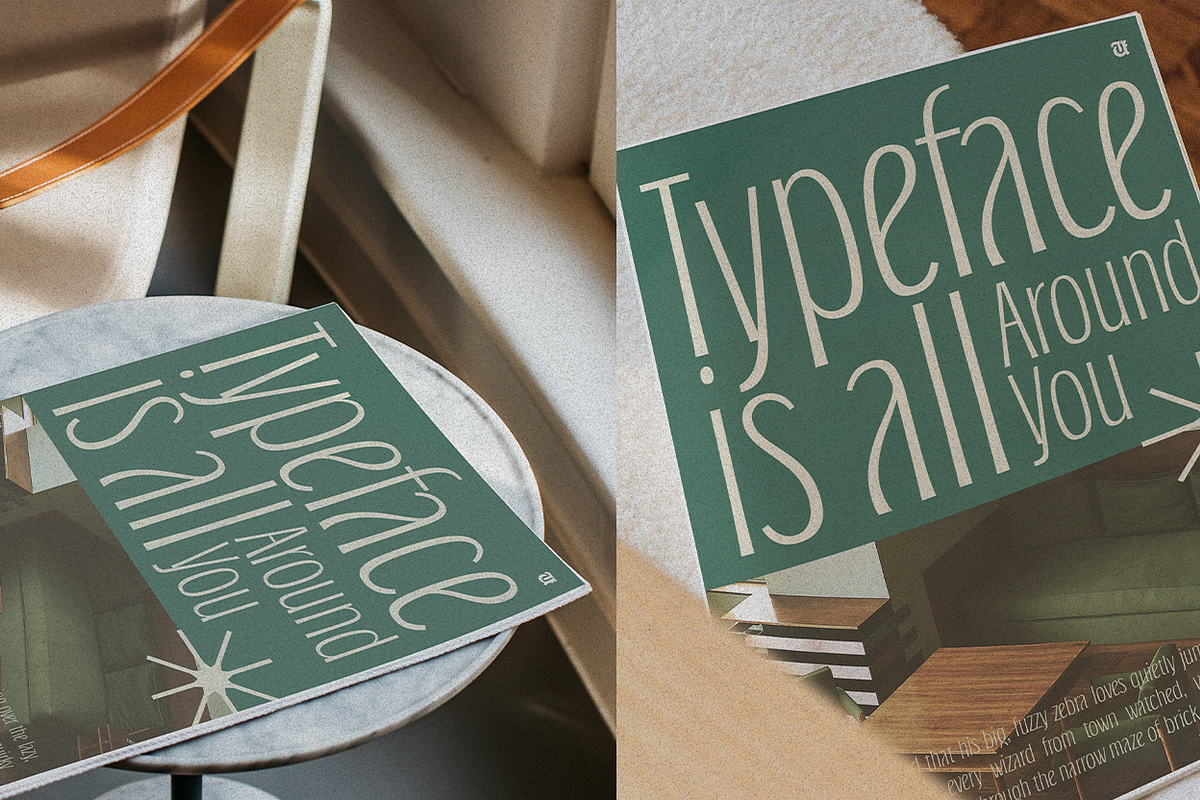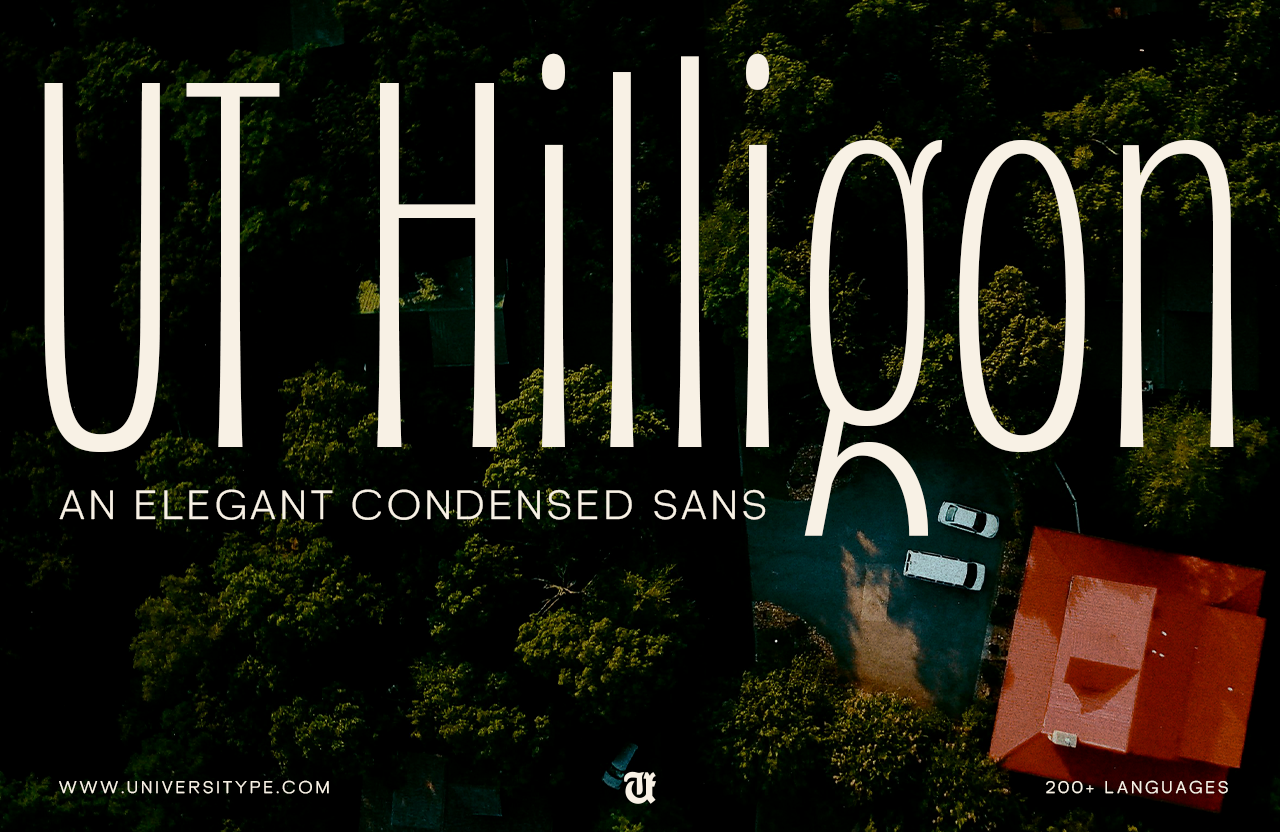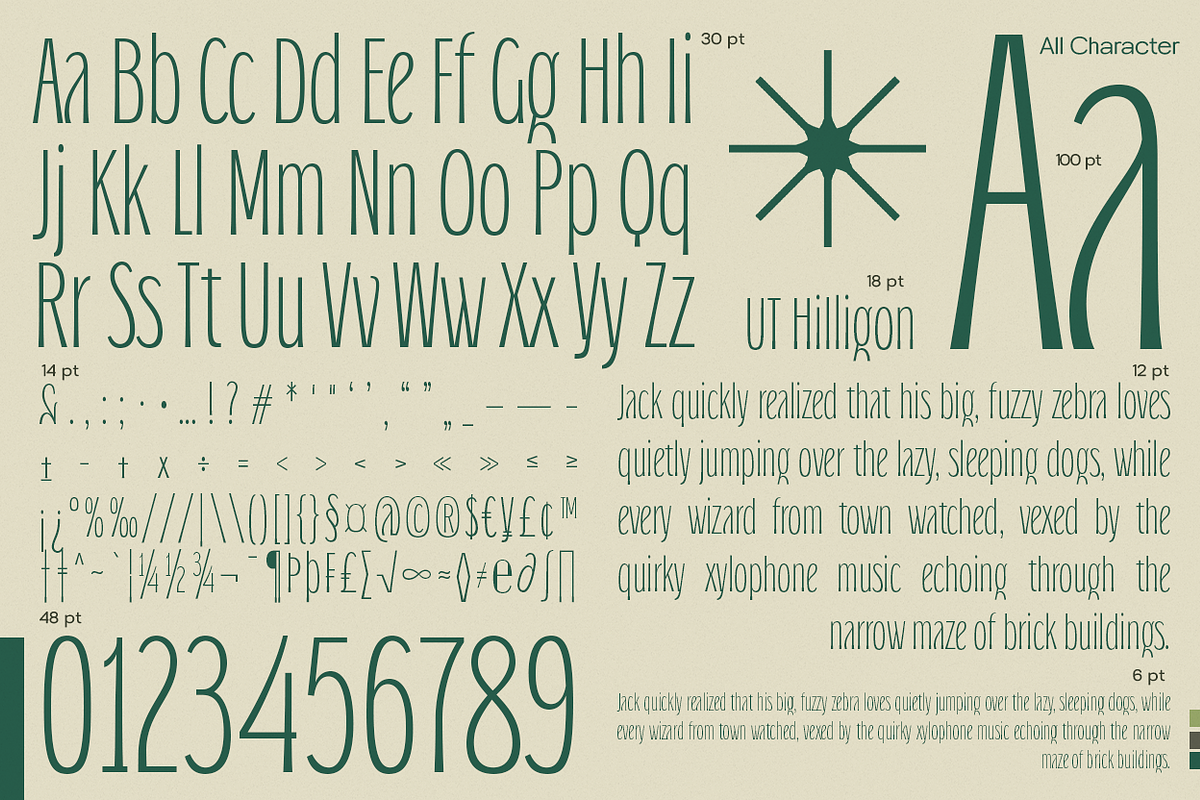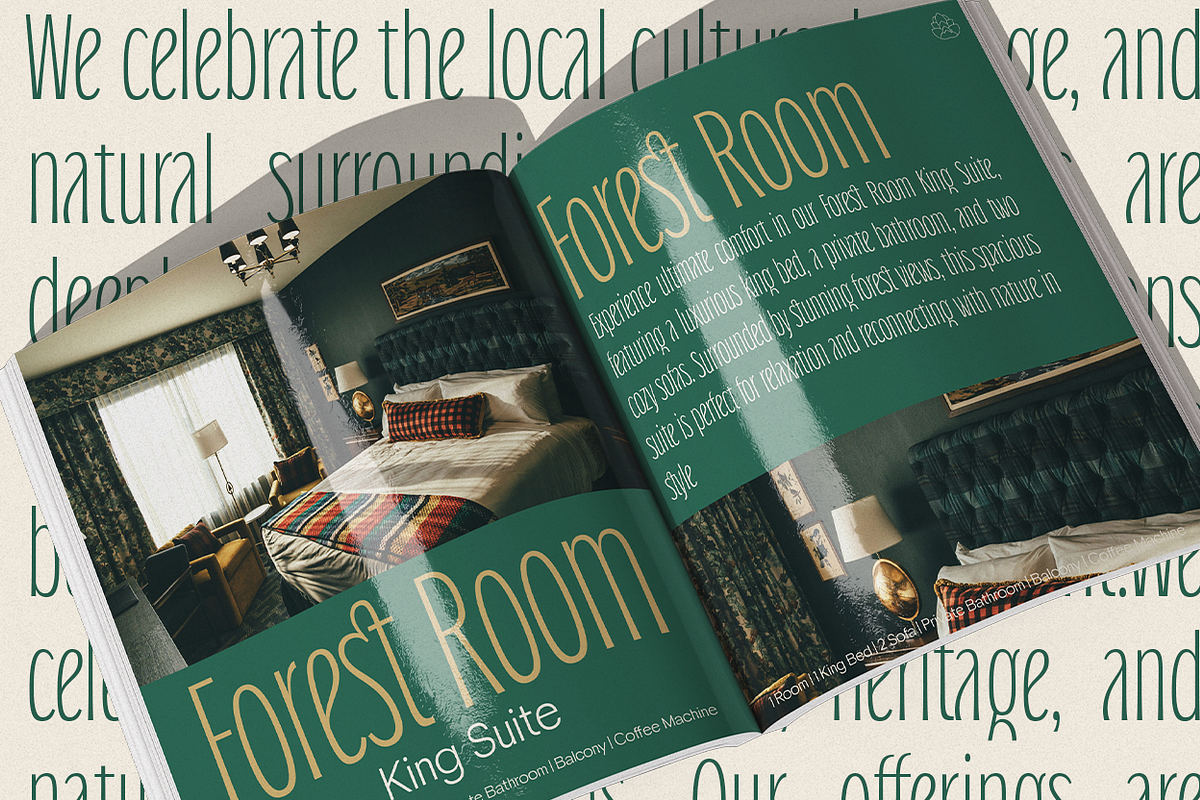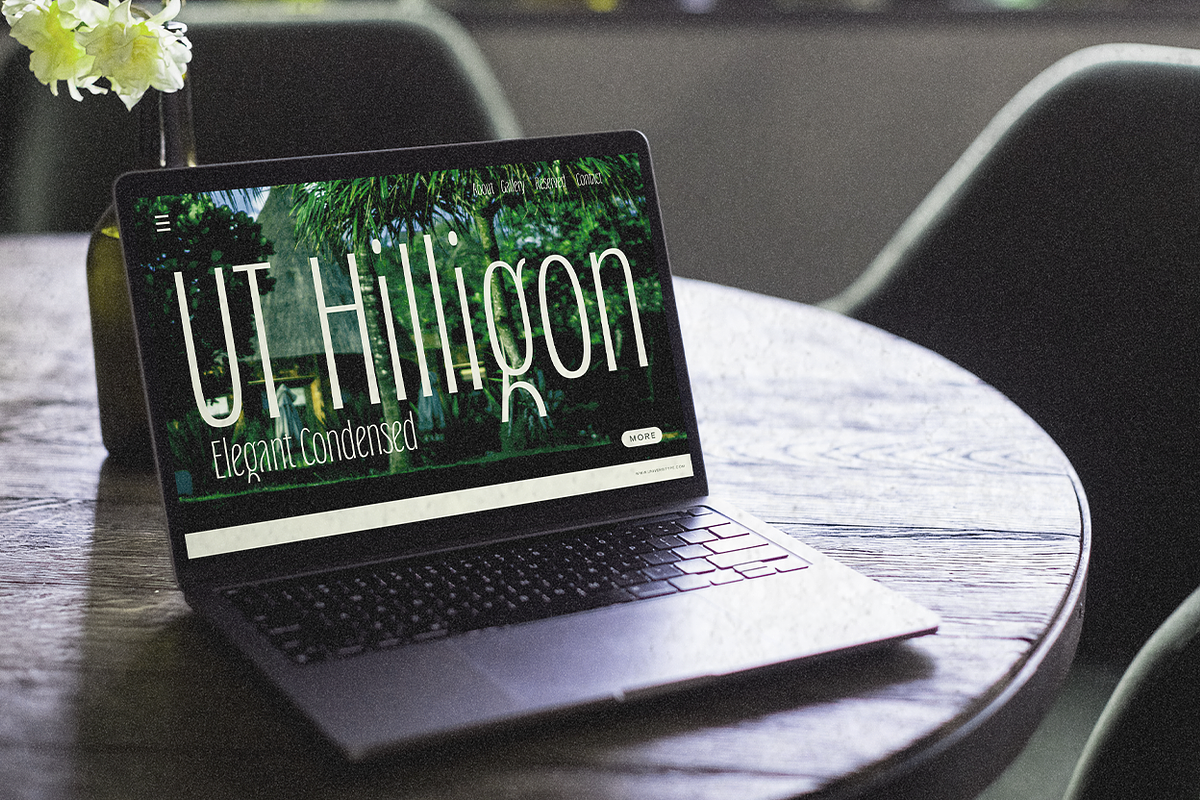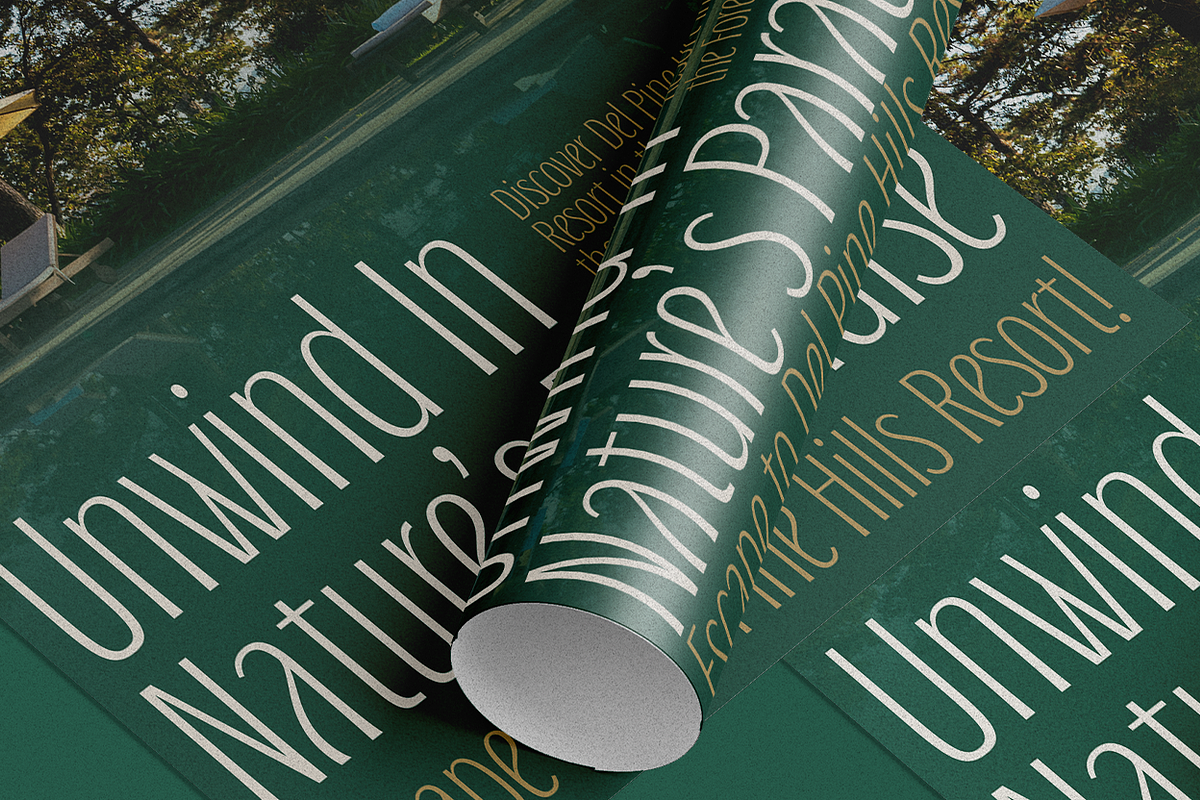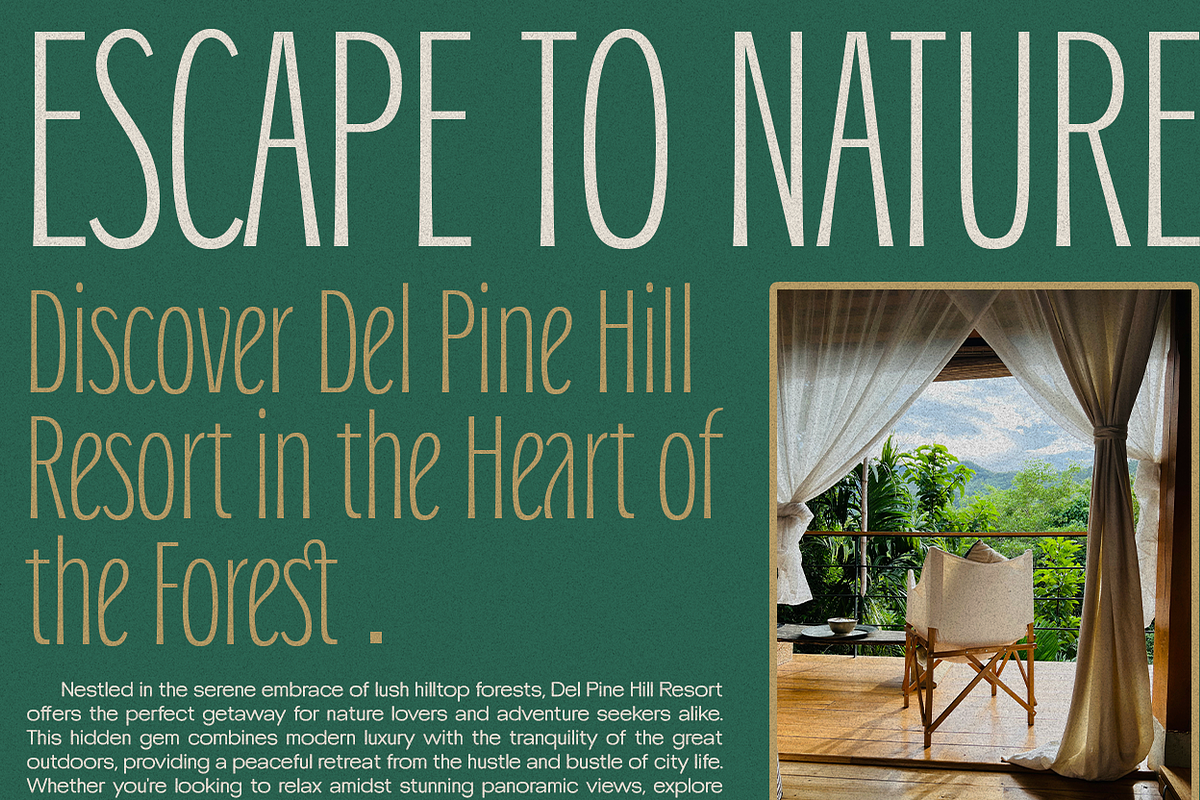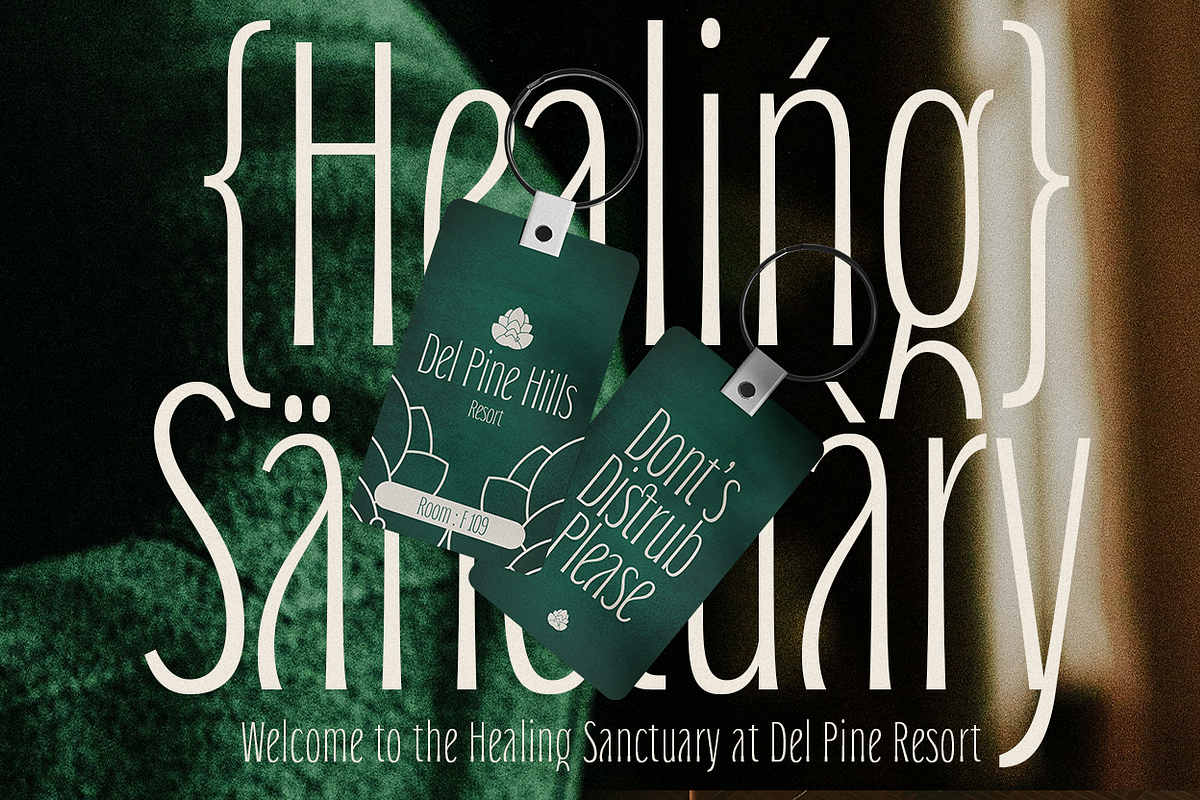
UT Hilligon - An Elegant Font
UT Hilligon transcends conventional typography, weaving the organic charm of nature into a luxurious aesthetic. Inspired by the intricate patterns of pine cones, this typeface embodies the warmth and complexity of the outdoors, offering a fresh perspective on design. Crafted for discerning creators, it strikes a harmonious balance between modernity and nature’s grace, making every design endeavor a captivating statement.
Sophisticated Elegance Tailored for Luxury With its refined character, UT Hilligon exudes an air of sophistication, ideal for upscale brands and premium projects. Each letterform hints at nature’s nuances, featuring clean, flowing lines that evoke understated luxury. Whether adorning a high-end logo, enhancing an editorial layout, or elevating an exquisite product label, this typeface resonates with audiences who value both artistry and meticulous craftsmanship.
Transformative Design Elements:
- Adaptable Across Mediums: Effortlessly transitions from print to digital realms, providing a polished touch for packaging, branding, and web design. Its versatility ensures seamless integration into various contexts.
- Extensive Glyph Collection: Over 400 meticulously designed glyphs encompass a diverse range of characters, punctuation, and symbols, catering to multilingual needs and creative typography.
- Artful Ligatures and Alternates: Enhance visual appeal with beautifully crafted ligatures and stylistic alternates, allowing designers to inject individuality and flair into their typography.
- Clarity Meets Style: Thoughtfully designed for optimal readability, UT Hilligon maintains its artistic integrity across all sizes, from bold headings to delicate body text.
- Nature-Inspired Modernity: Each letterform channels the spiraling geometry and intricate textures of pine cones, merging organic elements with contemporary design sensibilities.
Crafted for Visionaries and Luxury Brands
UT Hilligon’s versatility caters to a broad spectrum of professionals, including:
- Luxury Brand Creators: Perfect for fashion, beauty, and lifestyle brands seeking a typeface that radiates elegance and uniqueness.
- Graphic Designers and Art Directors: Elevate storytelling through visually rich layouts, adding depth and texture that resonate with nature-inspired sophistication.
- Marketing Experts: Ideal for crafting logos, promotional materials, and campaigns that blend authenticity with a touch of luxury.
- Editorial Innovators: Make a bold impact in magazine spreads, book covers, and typographic compositions that captivate discerning readers.
- Product and Packaging Designers: Elevate packaging aesthetics for luxury items, particularly in cosmetics, gourmet foods, and artisanal offerings.
Inspiration Behind
UT Hilligon Born from the enchanting forest, UT Hilligon draws inspiration from the scattered beauty of pine cones. Their textured surfaces and symmetrical spirals inspired the designer to transform these organic forms into a striking typographic language. The outcome is a typeface that celebrates nature’s intricacies while offering the structured lines essential for contemporary design.
Usage Suggestions
- Luxury Branding: An impeccable fit for high-end brands in fashion and lifestyle, UT Hilligon imparts a refined, distinctive touch.
- Marketing Materials: Elevate brochures, flyers, and posters with a distinguished character that seamlessly merges natural elegance and sophistication.
- Digital Design: Enrich websites, social media graphics, and digital campaigns with a luxurious aesthetic that invites engagement.
- Editorial Excellence: Create visually compelling magazine layouts and stylish book covers that exude refinement and taste.
- Packaging Aesthetics: Perfect for premium product packaging, including gourmet foods, skincare, and beverages that demand an exquisite presentation.
- Font Family: UT Hilligon
- Style: Regular
- Glyph Coverage: Extensive, featuring over 400 glyphs, including Latin characters, punctuation, and special symbols.
- Special Features: Includes ligatures and stylistic alternates for enhanced creative expression.
Embrace Nature’s Sophistication UT Hilligon intertwines the elegance of nature with contemporary design, transforming projects into extraordinary expressions of creativity. Allow your vision to flourish alongside the graceful curves of a pine cone, as this typeface imbues your work with a touch of natural luxury. With UT Hilligon, each letter narrates a tale of beauty, harmony, and elegance inspired by the timeless forms found in the natural world.